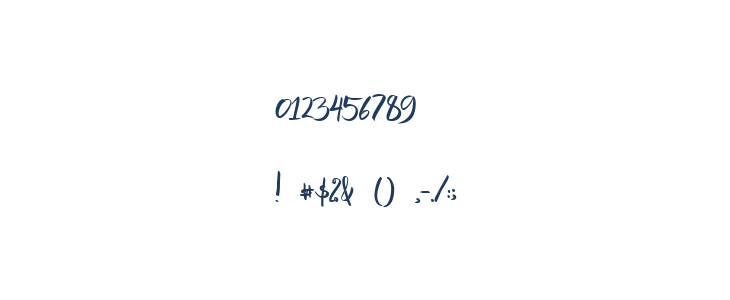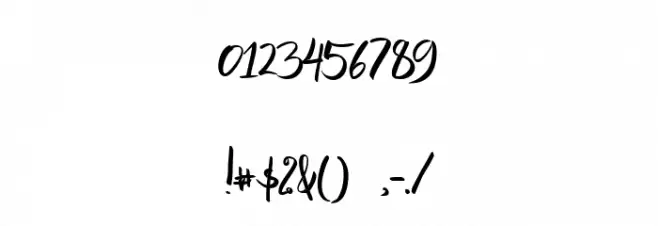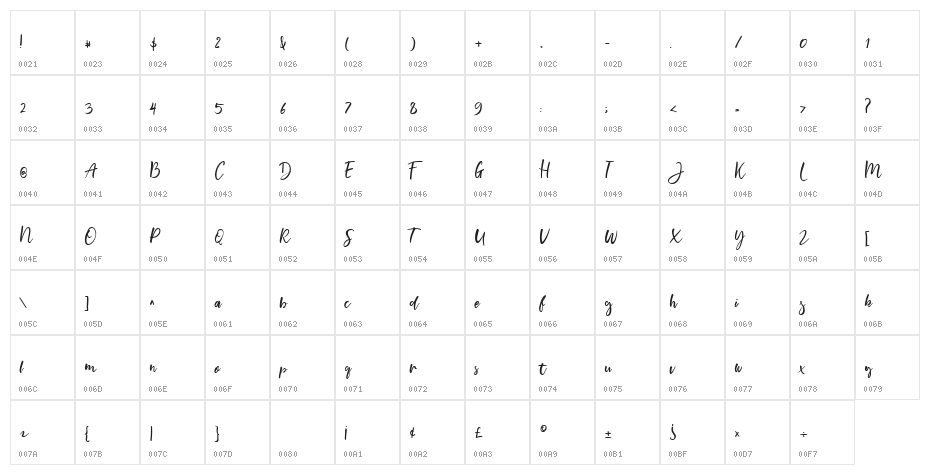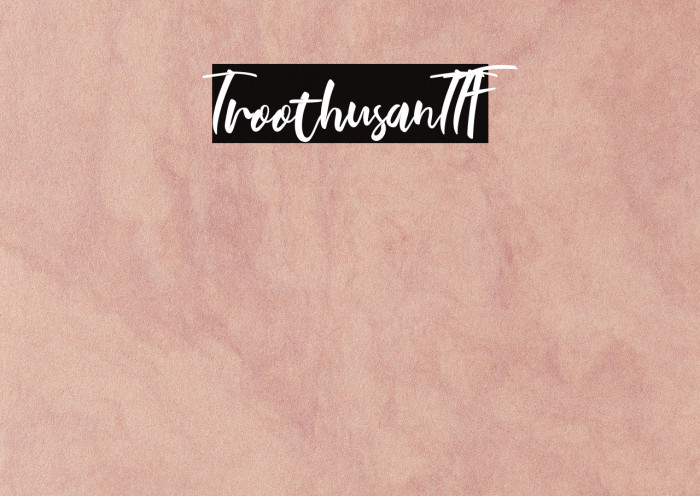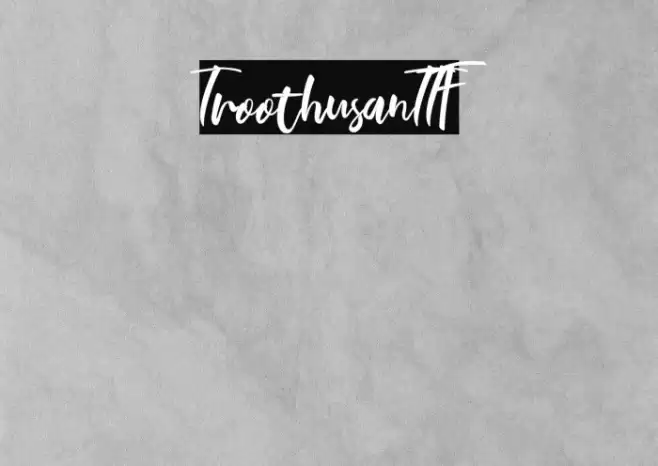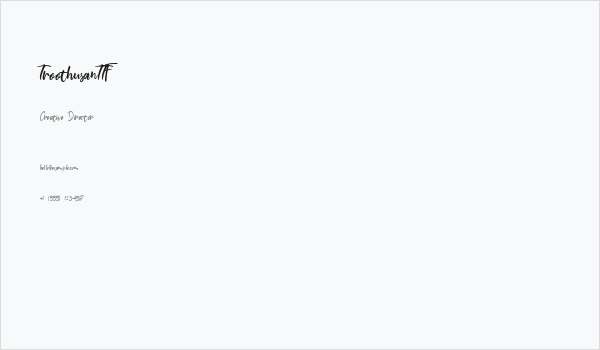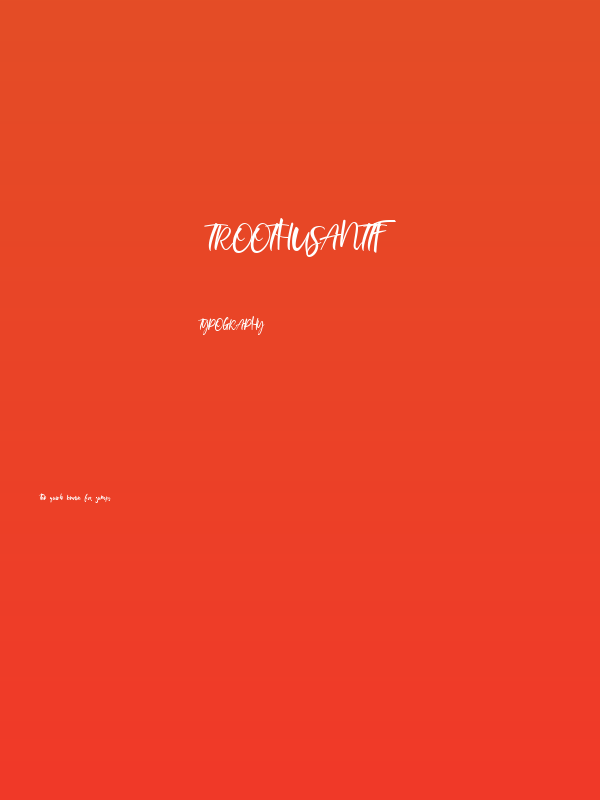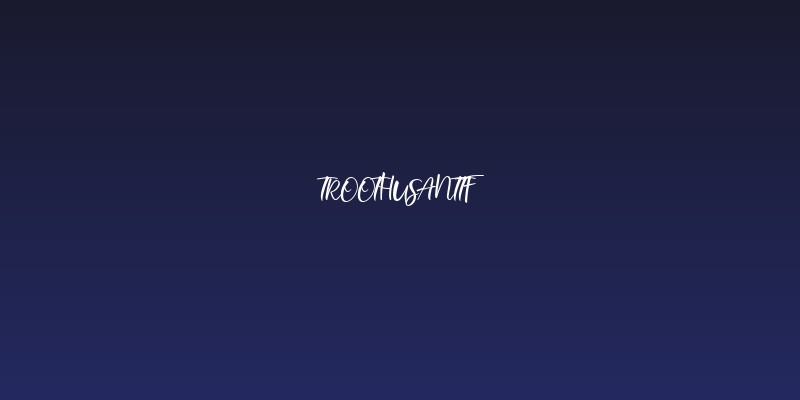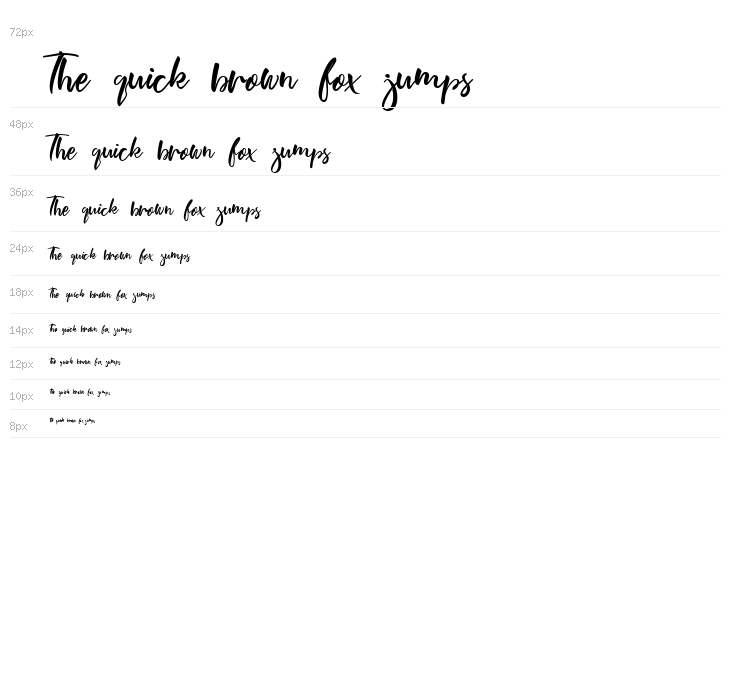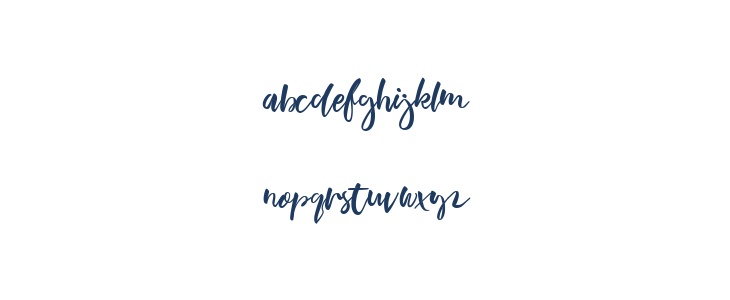
TroothusanTTF Font
TroothusanTTF Description
This font features a flowing, cursive style with a modern twist. The uppercase letters are bold and dynamic, with a slight slant that adds a sense of movement and elegance. The lowercase letters maintain a consistent flow, with smooth curves and loops that enhance readability while retaining a stylish flair. Numbers are clear and distinct, matching the overall aesthetic of the font. Special characters are well-integrated, maintaining the same fluidity and artistic touch. This font is ideal for projects that require a personal, handwritten feel, such as invitations, branding, and creative designs.